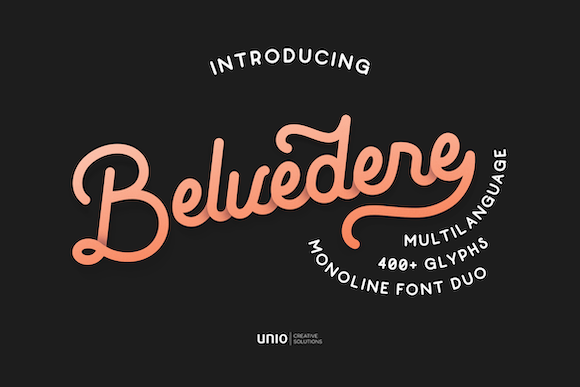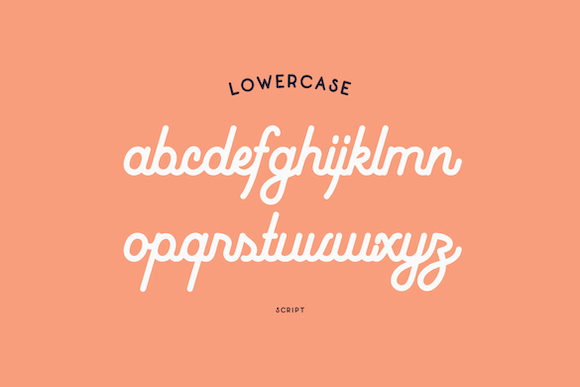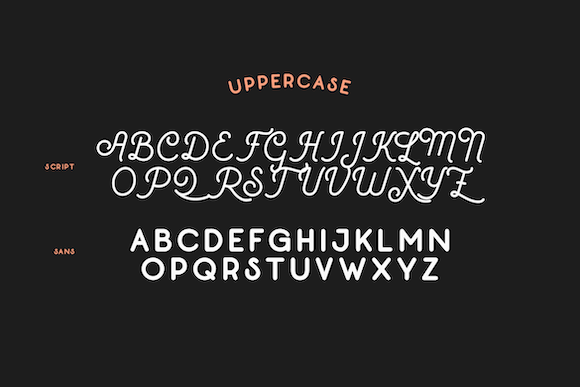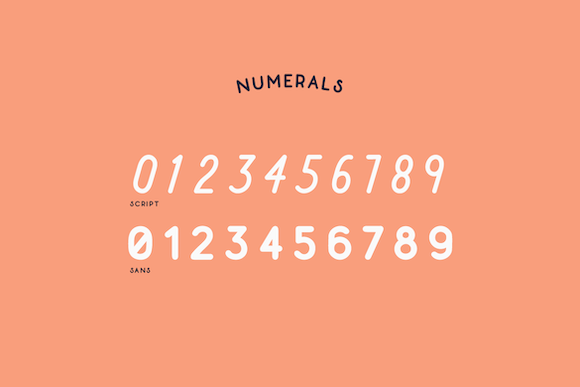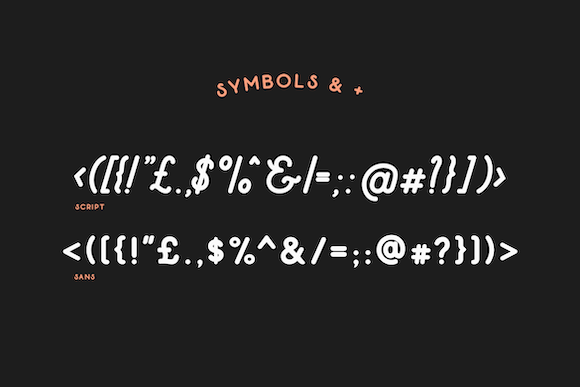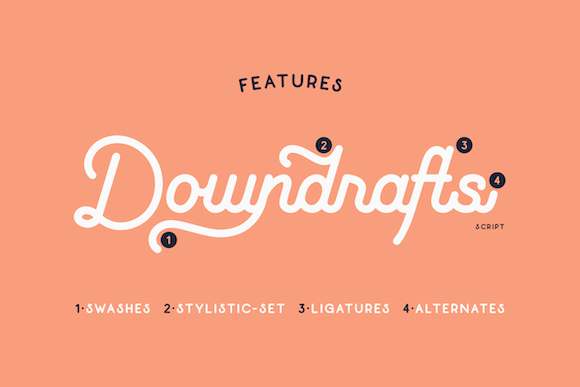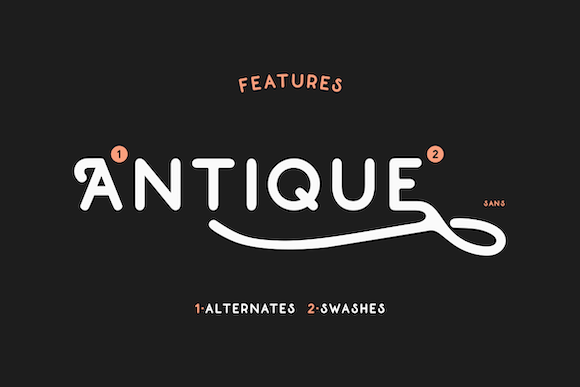
Belvedere Font
About Belvedere Font
Belvedere font duo is inspired by vintage typography style. The curvy nature of this font duo is perfect for headers, titles, and many other eye-catching designs!